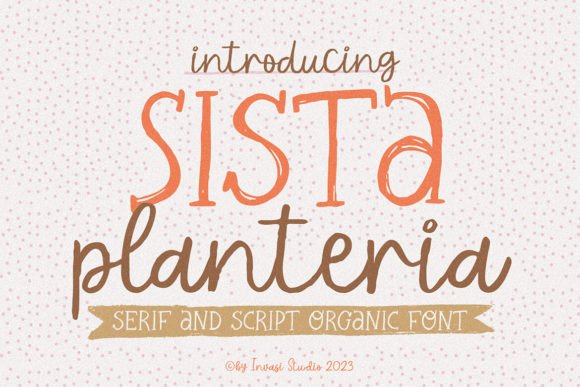
Introducing Sista Planteria Font, the perfect choice for script tattoo enthusiasts searching for the best font to bring their designs to life. Created by invasistudio, this font family adds an organic twist to your creative projects, making them truly captivating.
With Sista Planteria, you get a delightful duo of fonts that work seamlessly together. The all-caps serif font exudes elegance, while the playful script font adds a touch of whimsy. Combining these two fonts allows you to create stunning illustrations, design enchanting book covers, craft delightful quotes, and even add charm to your packaging.
What sets Sista Planteria apart is its alternates and ligatures, which give it a unique signature handwriting style. These features add a natural elegance to your designs, making them stand out from the crowd. And the best part? Language barriers are no issue with Sista Planteria. It fully supports multilingual Latin characters, allowing you to express your creativity in any language.
Infuse your designs with a dash of organic taste that will captivate hearts and bring smiles. Whether you're a tattoo artist looking to create the perfect script tattoo or a designer seeking to elevate your creations, Sista Planteria is the ultimate tool for you. Its versatility and captivating charm make it a must-have for any creative project.